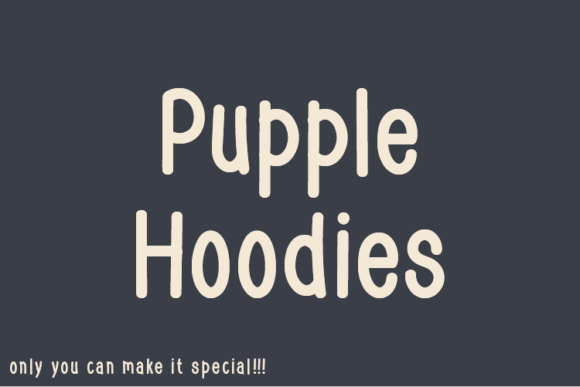
Feast your eyes on Pupple Hoodies, a captivating script font that will turn your study notes into mesmerizing masterpieces. Wave goodbye to dull, monotonous notes and say hello to a symphony of visual delight, crafted by the talented Hanna Bie.
Unique and Unparalleled:
Pupple Hoodies stands alone in the realm of fonts, meticulously crafted without altering a single node in each character's indentation. This unwavering commitment to authenticity results in a font that exudes charm, personality, and a touch of playfulness. Prepare to captivate your readers with notes that radiate individuality and flair.
Beauty in Simplicity:
Pupple Hoodies embraces the beauty of simplicity, its natural handwritten style evoking a sense of effortless elegance. Each letter dances across the page, connecting with your thoughts and emotions. The font's organic flow mirrors the fluidity of your ideas, transforming your notes into captivating works of art.
Perfect for Study Notes:
Pupple Hoodies is your perfect companion for study notes, where clarity and organization meet aesthetic allure. Its legible design ensures that your notes remain readable and informative, while the font's inherent charm keeps you engaged and motivated. Transform your study sessions into enjoyable experiences, where learning and creativity intertwine.
Quotes Come Alive:
Harness the power of Pupple Hoodies to bring quotes to life, imbuing them with depth and emotion. Whether it's a profound insight, an inspiring message, or a beautiful turn of phrase, Pupple Hoodies will elevate your words, making them resonate with your audience.
Tees and Product Design:
Unleash your creativity and let Pupple Hoodies adorn your tees, product designs, and branding materials. This versatile font effortlessly adapts to various design aesthetics, adding a touch of sophistication and uniqueness to your creations. Let your products speak volumes, capturing attention and leaving a lasting impression.